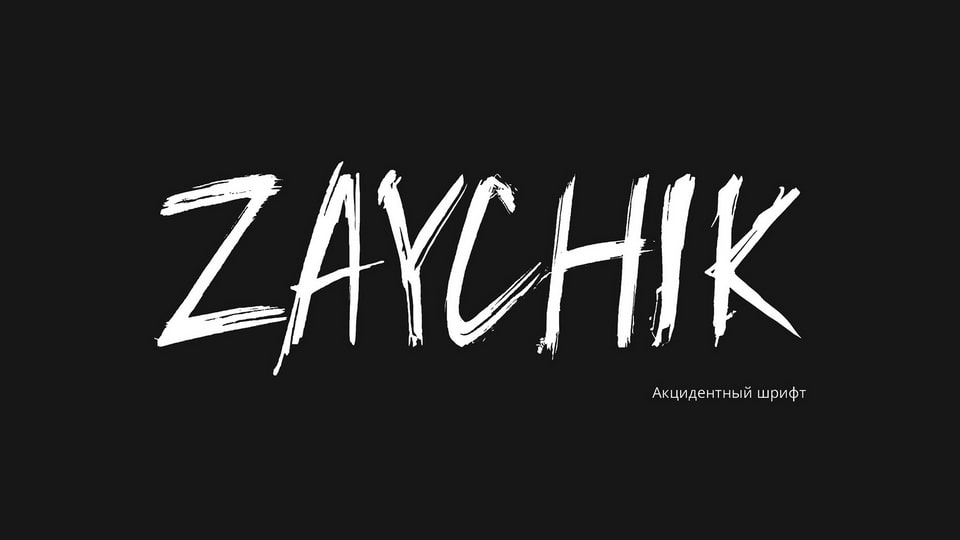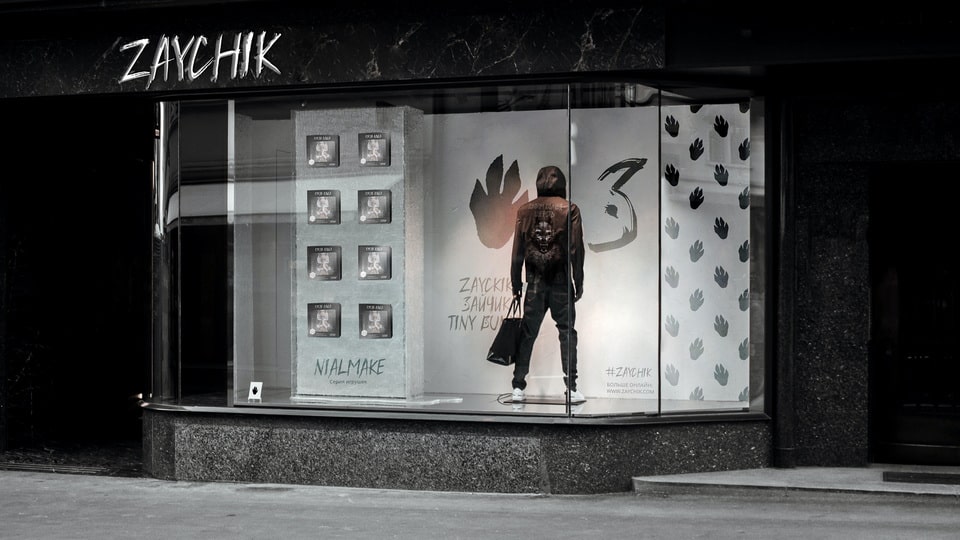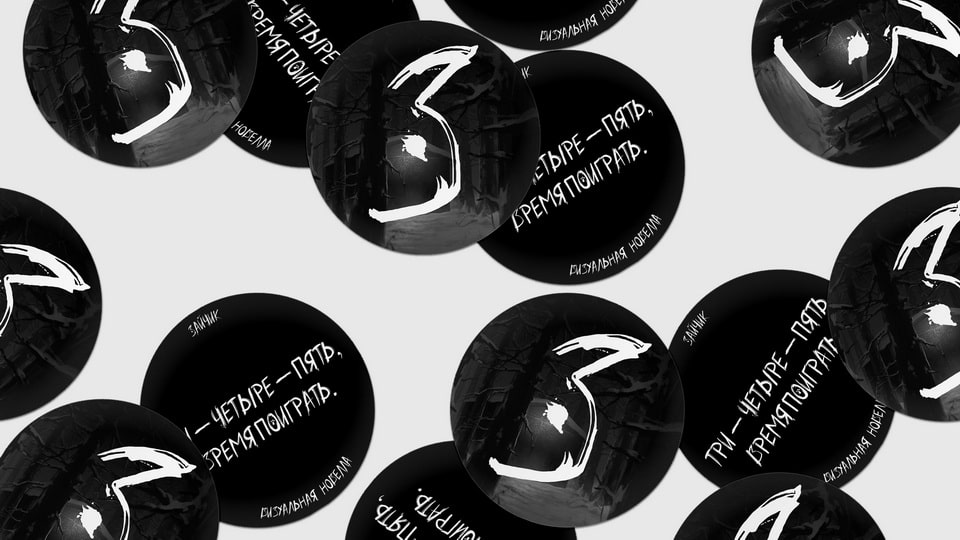
Zaychik is a handwritten display typeface for the visual horror novel "Bunny". The font is made from the novel's logo, which looks like a handwritten title with a hare's face in the letter "З".
The Zaychick font contains Latin, Cyrillic, symbols and additional Latin, so it can be used for languages that have diacritics.